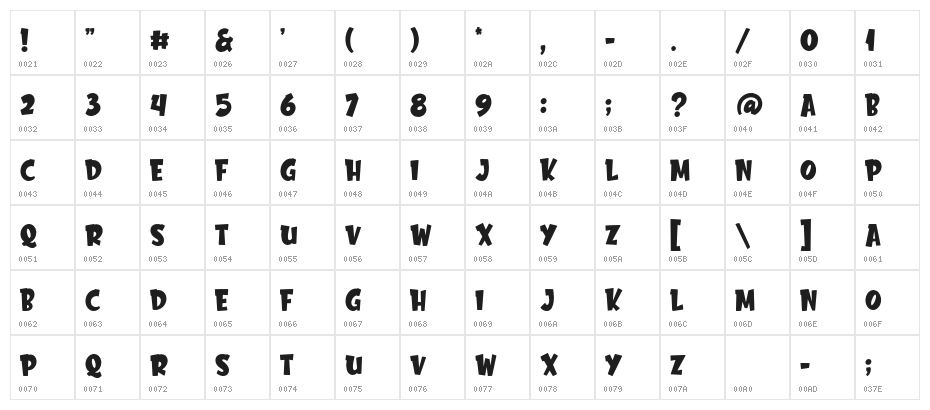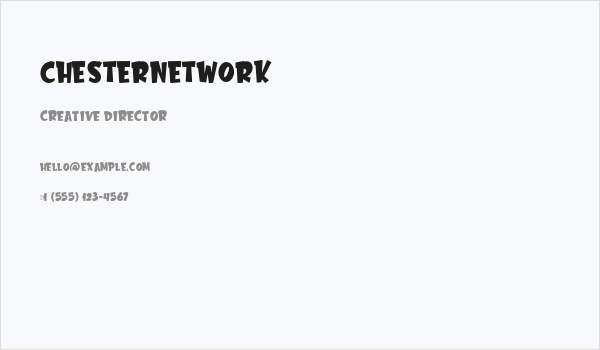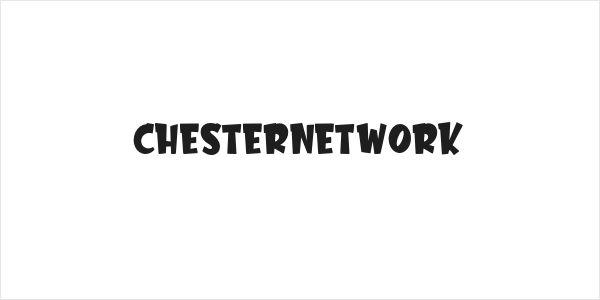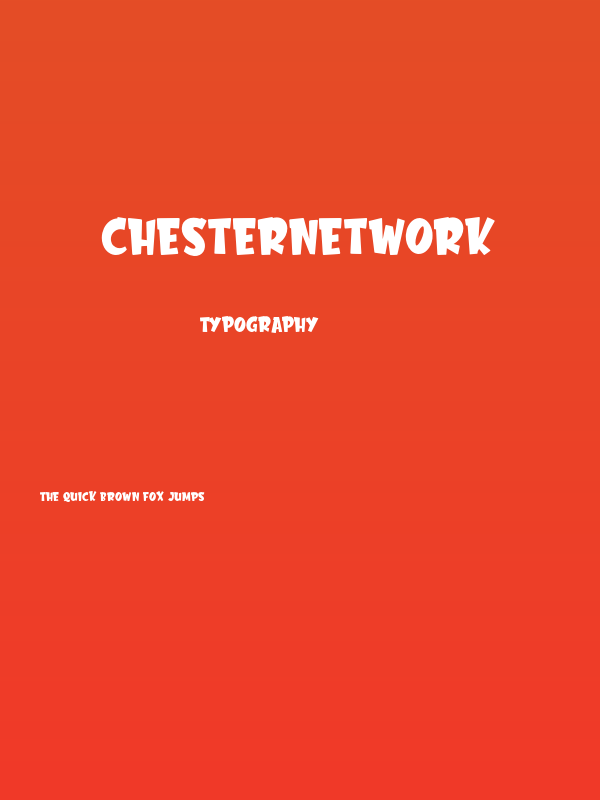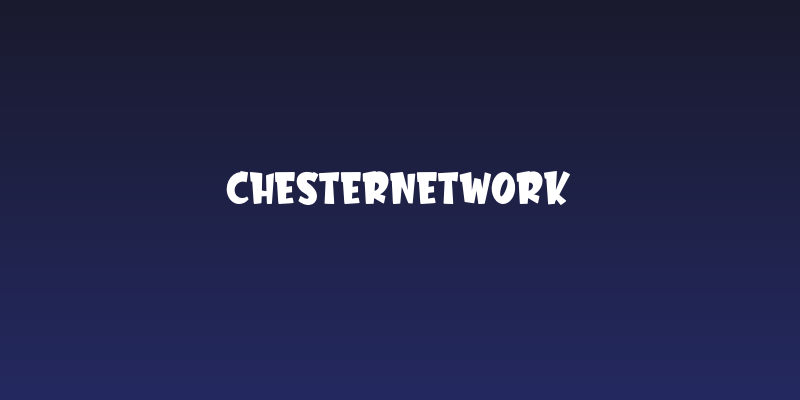
ChesterNetwork Font
ChesterNetwork Description
This font features bold, playful characters with a slightly irregular and hand-drawn appearance. The uppercase and lowercase letters are designed with a consistent thickness, giving them a strong visual impact. The numbers and special characters maintain the same bold style, ensuring uniformity across all elements. The font's quirky and dynamic nature makes it suitable for creative and informal projects. Its distinct style is characterized by exaggerated curves and angles, adding a sense of movement and energy to the text.
| Overall Style | Playful, Quirky |
| Use Case | Headlines, Posters, Branding |
| Proposed Projects | Ideal for children's books, comic strips, playful branding, and eye-catching posters. |